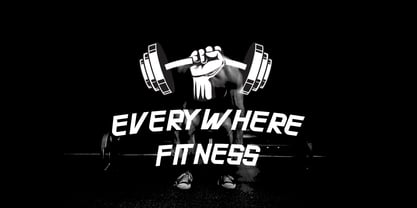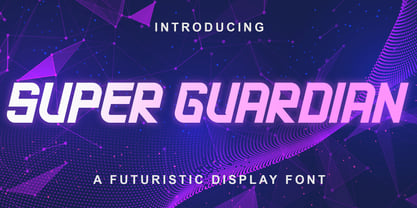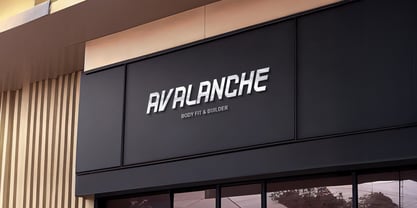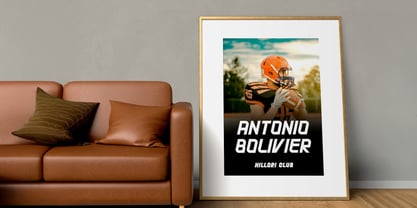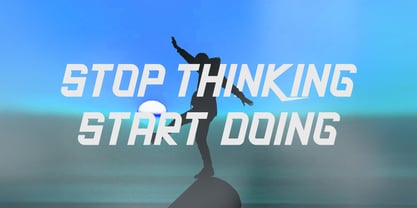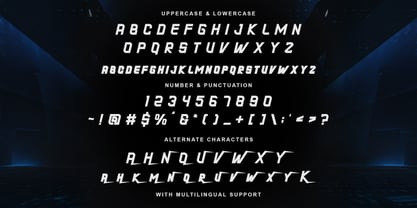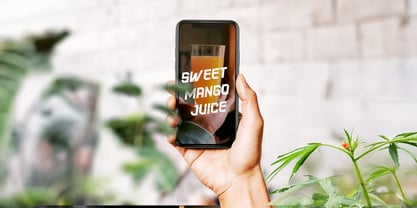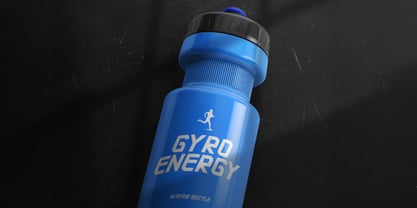
Super Guardian
by Stringlabs Creative Studio
The Super Guardian Font Family was designed by Virgiawan Listanto and published by Stringlabs Creative Studio. Super Guardian contains 1 styles.
Super Guardian is a bold and powerful futuristic sans font engineered for a high-tech, cinematic aesthetic. Its clean, geometric letterforms and authoritative presence evoke a sense of strength, advanced technology, and heroic protection. This font is the perfect choice for projects demanding impact and a sci-fi edge. Use it for designing titles for a blockbuster movie or video game, creating logos for tech or cybersecurity firms, and crafting dynamic headlines that stand ready to defend the future.